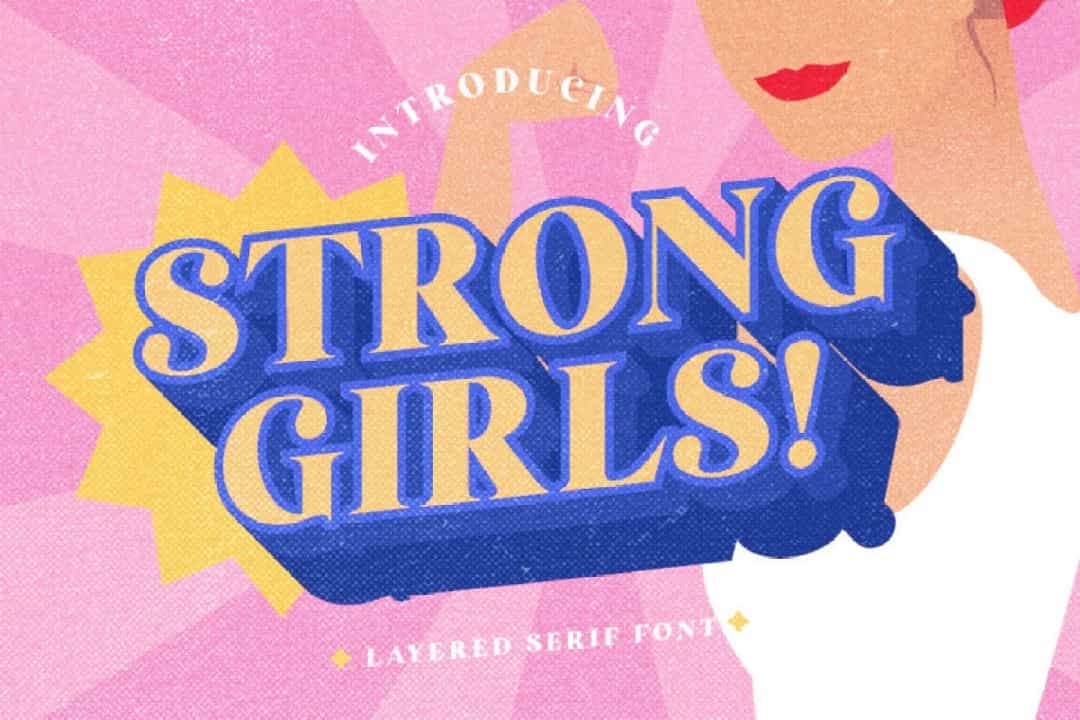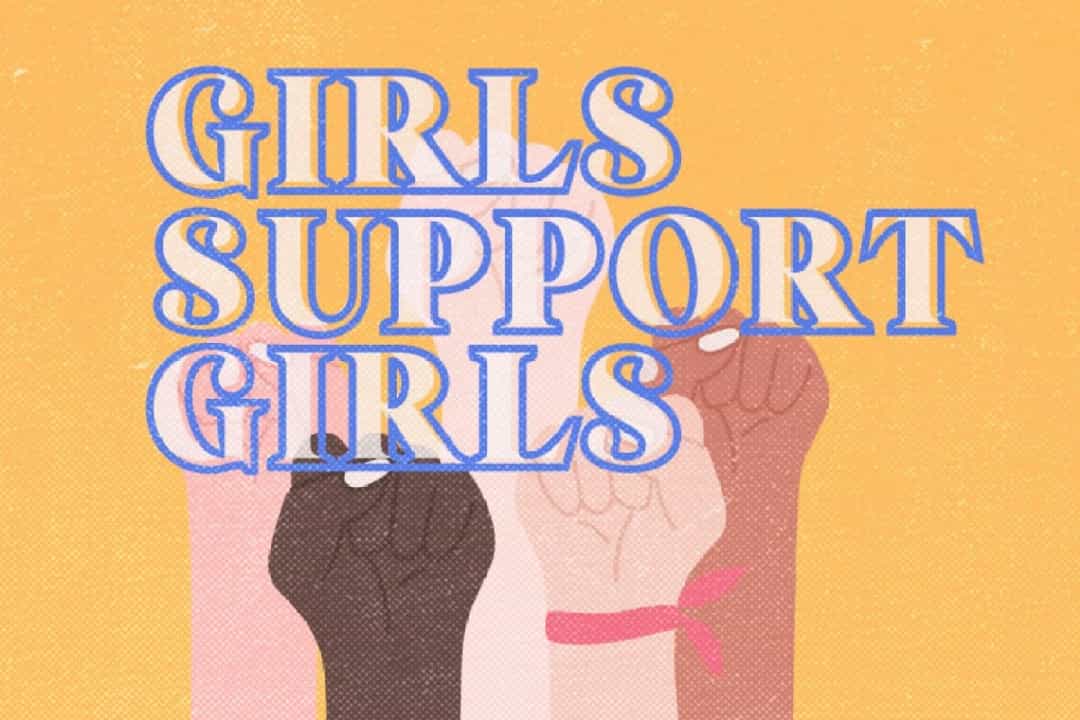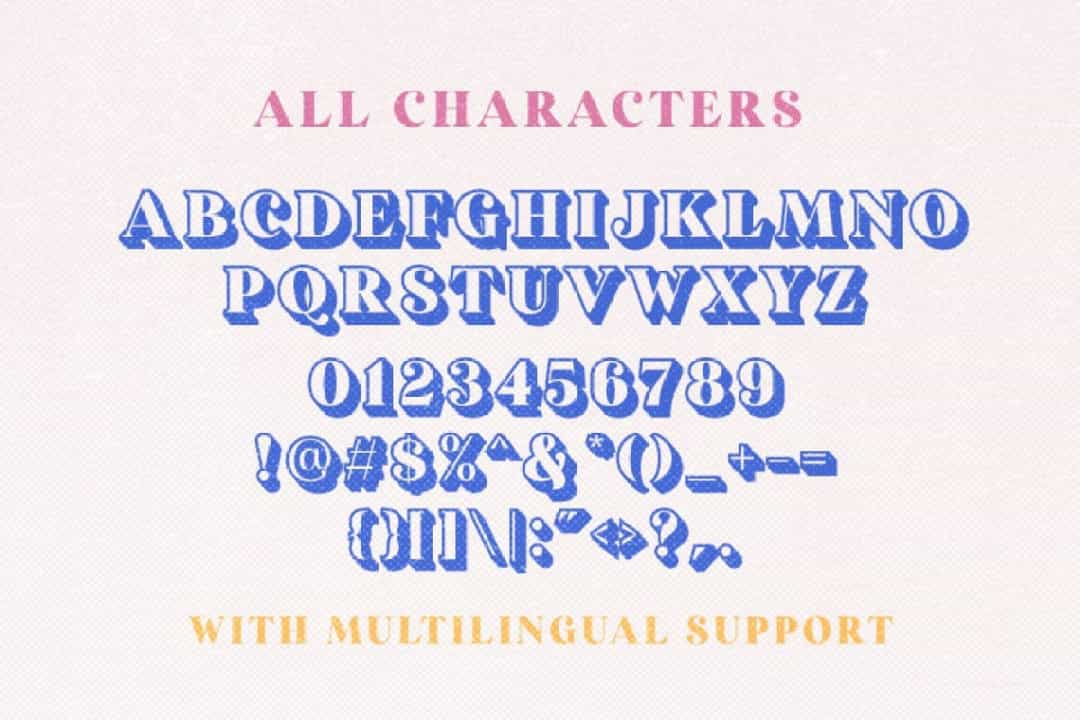
Strong Girls is a serif font with layers that includes four fonts: outline, regular extrude, extrude and long extrude. Similar to other fonts that feature layers, it allows users to combine all four styles for a 3D design effect in text.